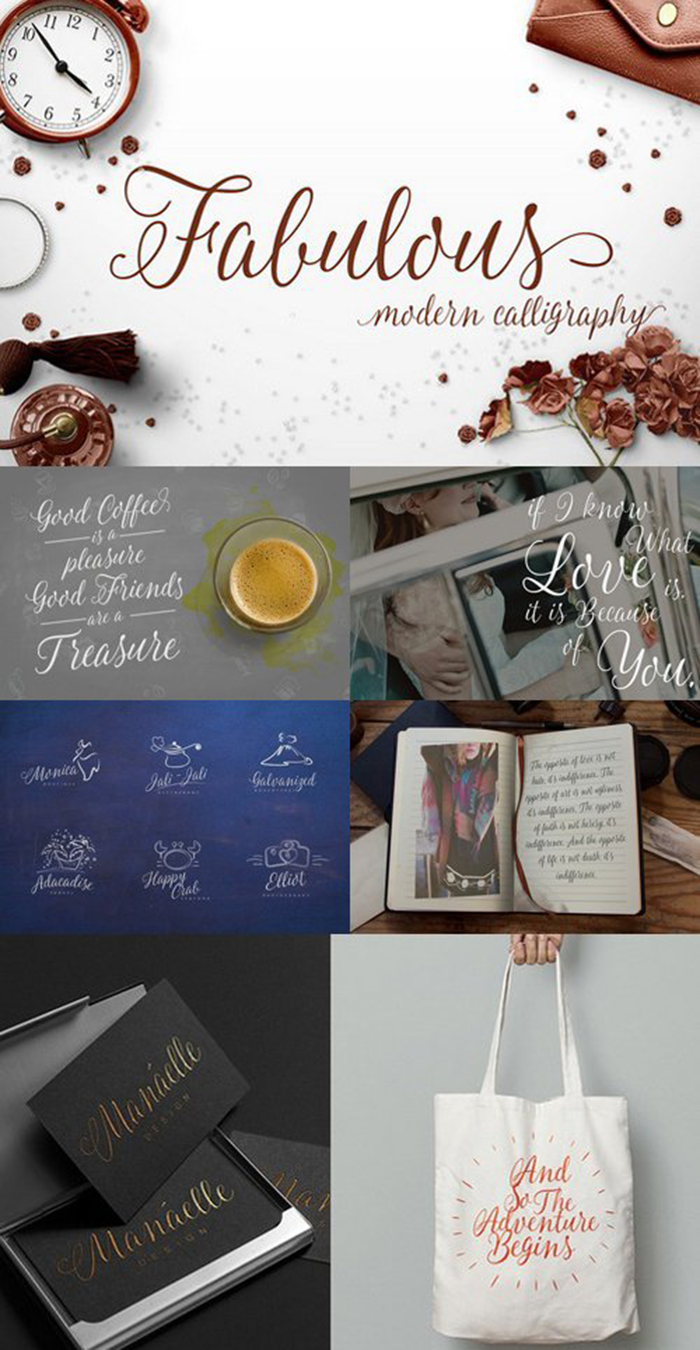
Fabulous Script Font
Fabulous is handwritten stylish copperplate calligraphy fonts, combines from copperplate to contemporary typeface with a dancing baseline, classic and elegant touch. Can be used for various purposes.such as headings, signature, logos, wedding invitation, t-shirt, letterhead, signage, lable, news, posters, badges etc.